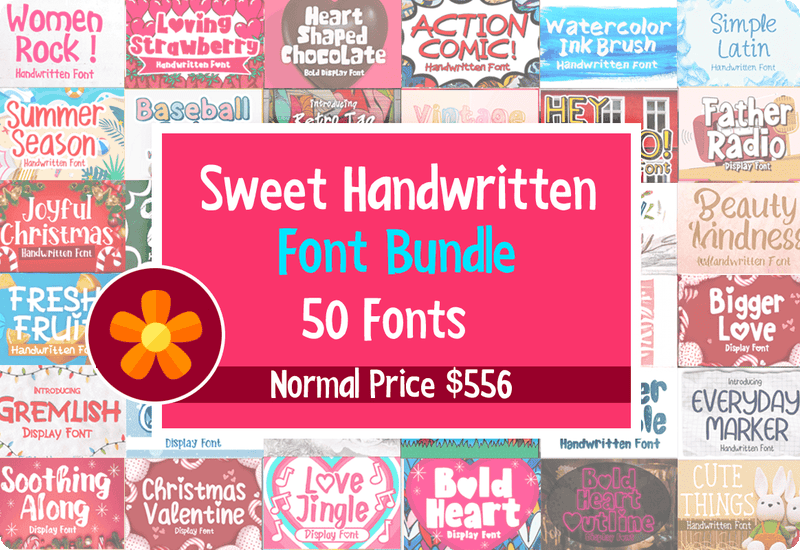
If you are a designer, creative professional, or hobbyist seeking to elevate your projects, the Sweet Handwritten Fonts Bundle is a must-have addition to your toolkit. This comprehensive collection includes 50 unique and playful fonts designed to add charm and personality to any design. Whether you are crafting invitations, social media graphics, product packaging, or branding materials, these versatile fonts ensure that your work stands out.
This bundle includes 50 premium handwritten fonts, each with its own distinct personality and style. From elegant script fonts to bold display fonts, you’ll have everything you need for any type of project, whether it’s professional or personal.
- Valentine Delight Display Font: Perfect for romantic designs.
- Retro Tag Graffiti Display Font: Add a retro touch to posters and logos.
- Watercolor Ink Brush Script Font: Ideal for artsy, creative projects.
- Christmas Kringle Display Font: Spread holiday cheer with this festive font.
- Asian Sumi Script Font: Bring an exotic flair to your designs.
- Valentine Delight Display Font
- Cute Things Script & Handwritten Font
- Introduction Script & Handwritten Font
- Bold Heart Outline Font Display Font
- Asian Sumi Script & Handwritten Font
- Simple Latin Script & Handwritten Font
- Christmas Valentine Display Font
- Warm Thanksgiving Display Font
- Retro Tag Graffiti Display Font
- Blooming Sakura Sans Serif Font
- Vintage Baby Display Font
- Joyful Christmas Display Font
- World Cancer Day Display Font
- Nuts Comic Script & Handwritten Font
- Fresh Fruit Display Font
- Wide Texas Display Font
- Expressive Comic Display Font
- Christmas Kringle Display Font
- Woodcut Display Font
- Bigger Love Display Font
- Winter Quarter Serif Font
- Hype Marker Display Font
- Bold Heart Display Font
- Heart Shaped Chocolate Display Font
- Angel House Display Font
- Loving Strawberry Display Font
- Everyday Marker Display Font
- Baseball Baby Display Font
- Watercolor Ink Brush Script & Handwritten Font
- Action Comic Script & Handwritten Font
- Cupid Flower Display Font
- Hey Retro Display Font
- Vintage Manga Display Font
- Women Rock Display Font
- Artsy Brush Display Font
- Quirky Chalk Display Font
- Mary Belle Display Font
- Baby Boho Display Font
- Beauty Kindness Script & Handwritten Font
- Folk Retro Script & Handwritten Font
- Candy Grunge Sans Serif Font
- Gremlish Display Font
- Brother Scribble Display-Schriftarten Schriftart
- Caffe Sunday Script & Handwritten Font
- Soothing Along Display Font
- Love Jingle Display Font
- Amazon Comic Display Font
- Canggu Beach Sans Serif Font
- Summer Season Script & Handwritten Font
- Father Radio Display Font
1. Playful and Versatile Design Options
The fonts in this bundle are designed to cater to every aesthetic need. From whimsical and quirky to sophisticated and elegant, this collection has a font for every occasion. Whether you’re working on wedding invitations, branding, social media posts, or custom apparel, these fonts will help your designs stand out.
Standout Features of the Sweet Handwritten Fonts Bundle
- High-Quality Typography: Each font is meticulously crafted to ensure readability and aesthetic appeal.